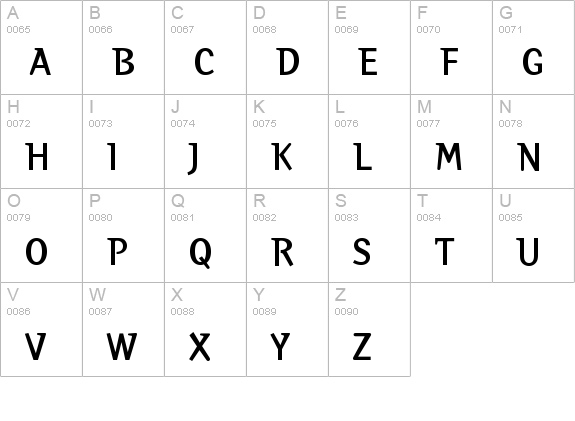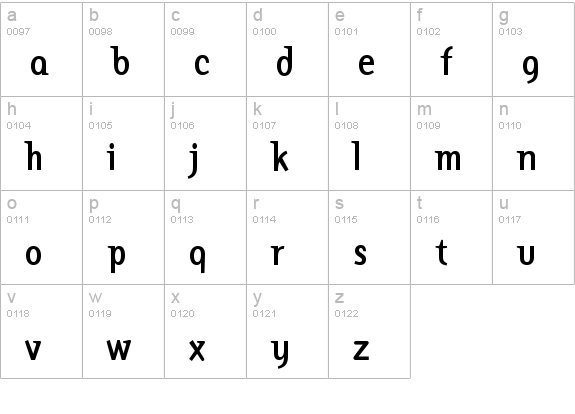
NatWest-Bold Font Details
NatWest-Bold is a strong, high-contrast variant in the NatWest typeface family \xE2\x80\x94 well suited to headlines, attention-grabbing titles, and strong calls-to-action.
Introducing NatWest-Bold font, a bold and striking typeface that exudes confidence and modernity. With its clean lines and strong presence, NatWest-Bold is perfect for making a statement in your designs. This versatile font is suitable for a wide range of projects, from logos and branding to posters and headlines. The best part? NatWest-Bold font is available for free download at FontsMarket.com, making it easily accessible for all your creative needs. Don't miss out on this opportunity to elevate your designs with the bold and impactful NatWest-Bold font. Download it today and unleash your creativity!